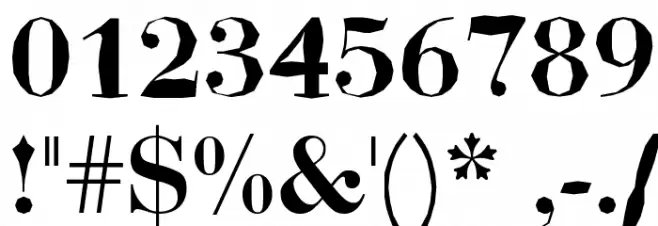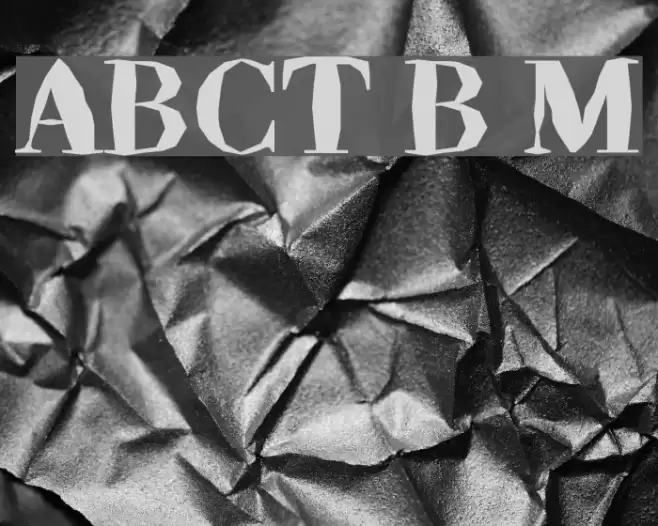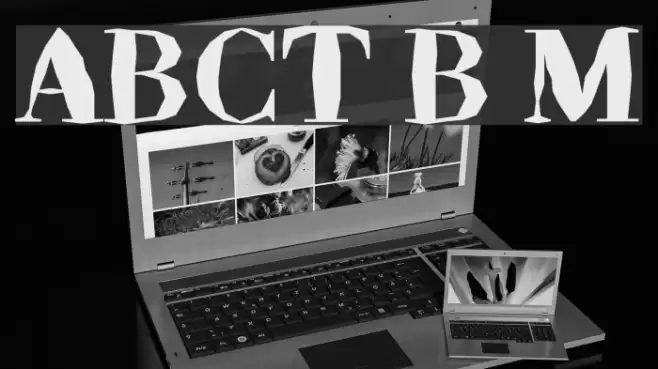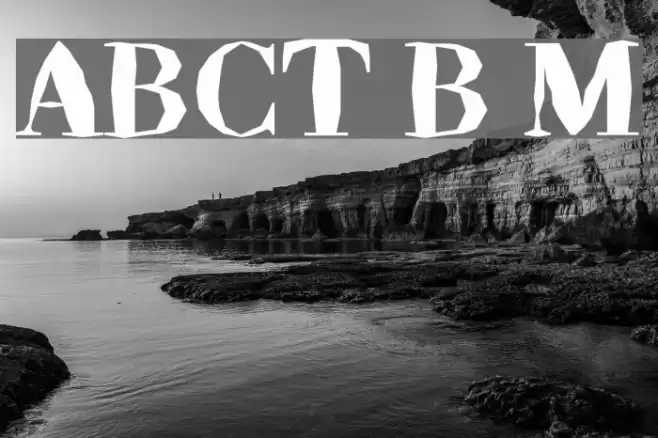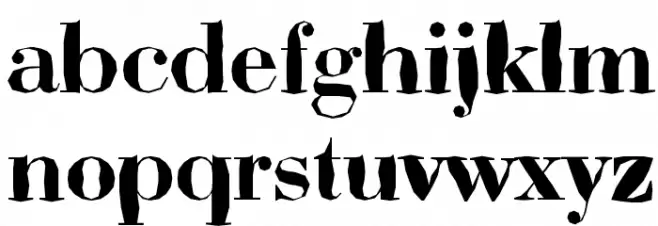
ABCTech Bodoni Mangle Font
ABCTech Bodoni Mangle Description
This font features a bold and dramatic style with high contrast between thick and thin strokes, reminiscent of classic serif designs. The uppercase letters are particularly striking, with sharp serifs and a slightly condensed form that gives a sense of elegance and authority. The lowercase letters maintain a consistent style, offering a harmonious blend of traditional and modern elements. The numerals are robust and clear, ensuring readability while maintaining the font's distinctive character. Special characters are well-integrated, providing versatility for various design needs.